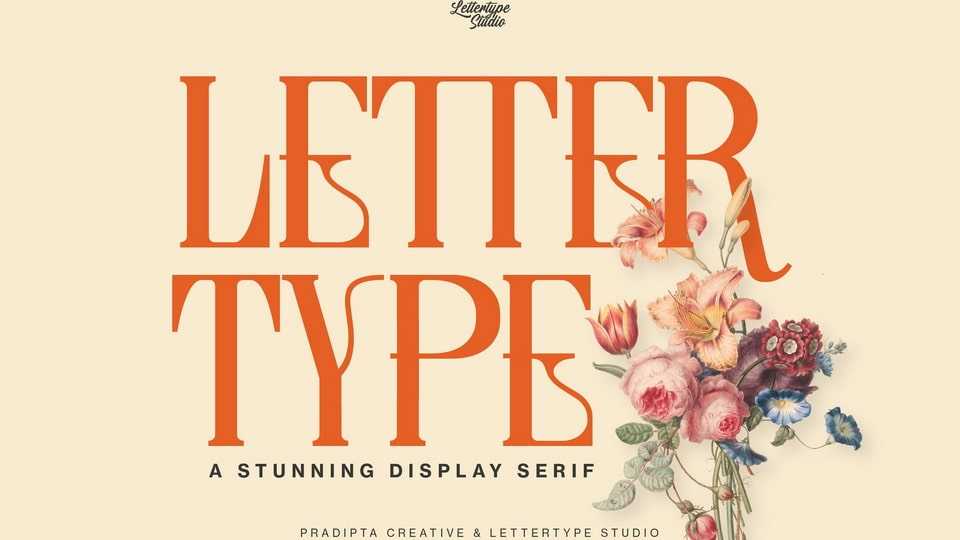
Download Lettertype font, a display serif typeface with a mixed modern classic style and has many “stylistic alternates”. Lettertype is our new masterpiece typeface, the core of this font is a condensed style and amazing experiment display serif style.